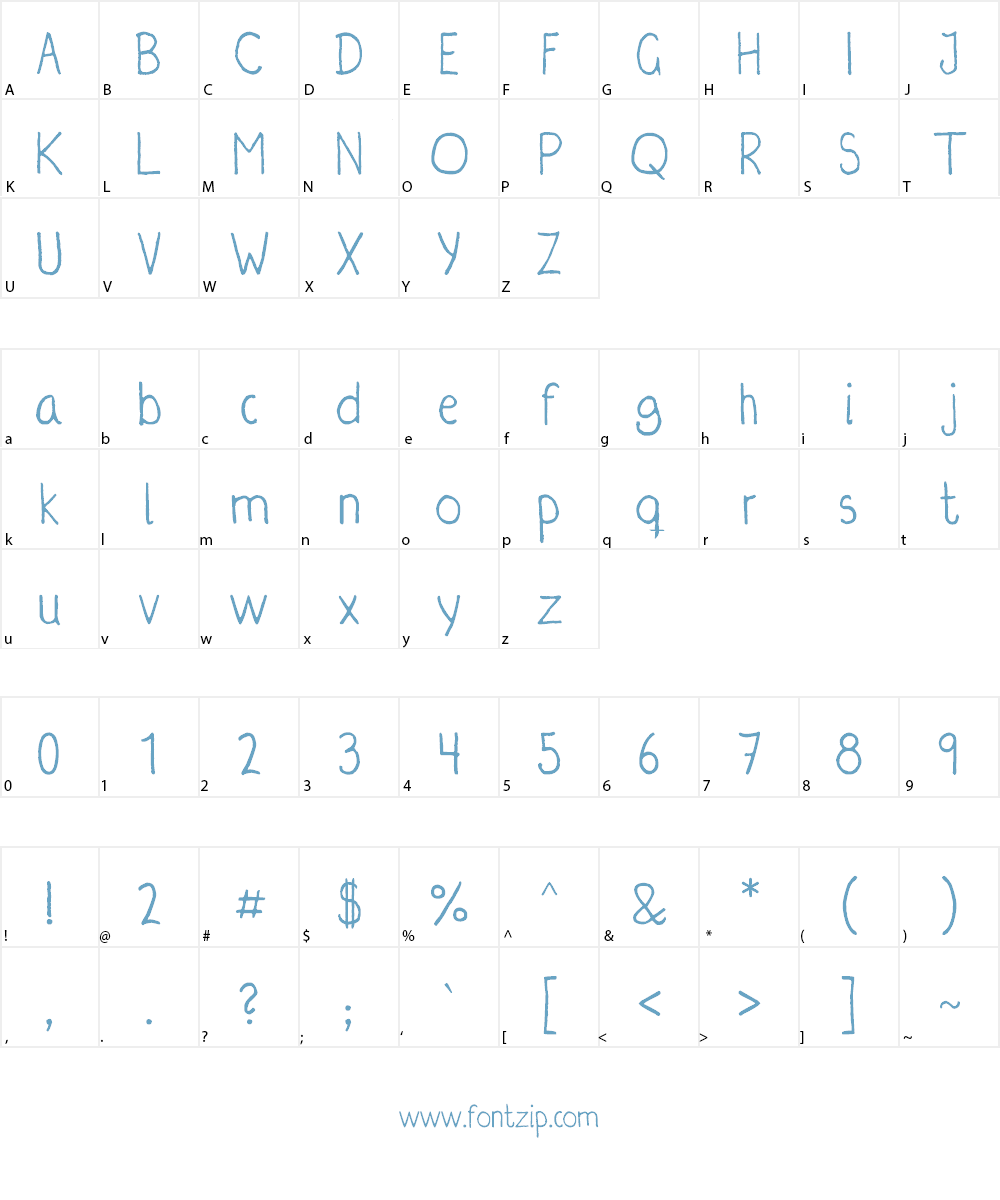
Irregularis is a handwrite-based font designed by Arman Ay. It is characterized by its casually simple, yet irregular handwritten style, and has been created for both personal and commercial use. The typeface has been acknowledged by numerous experts, including Luc Devroye, professor at the School of Computer Science of McGill University in Montreal, Canada.